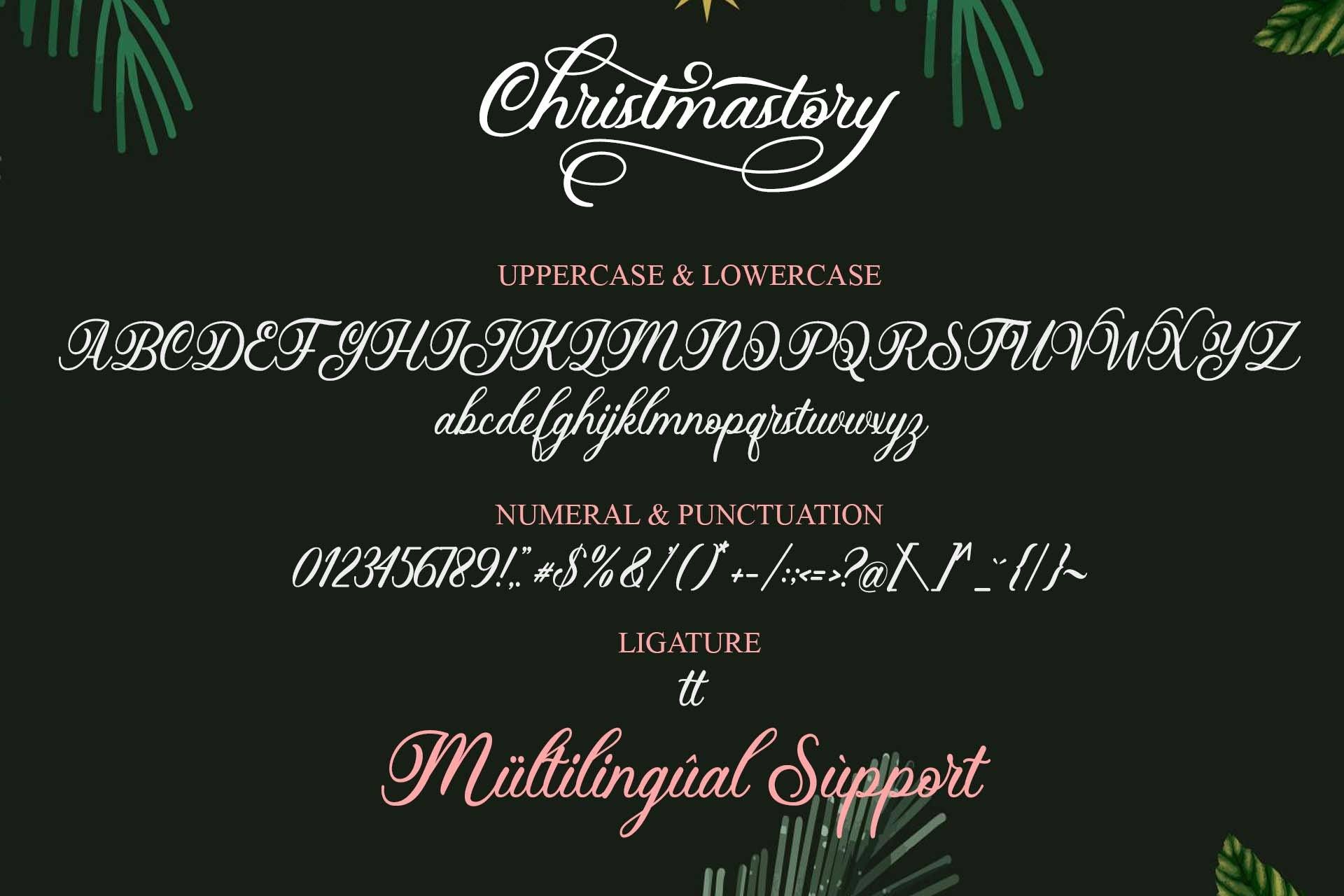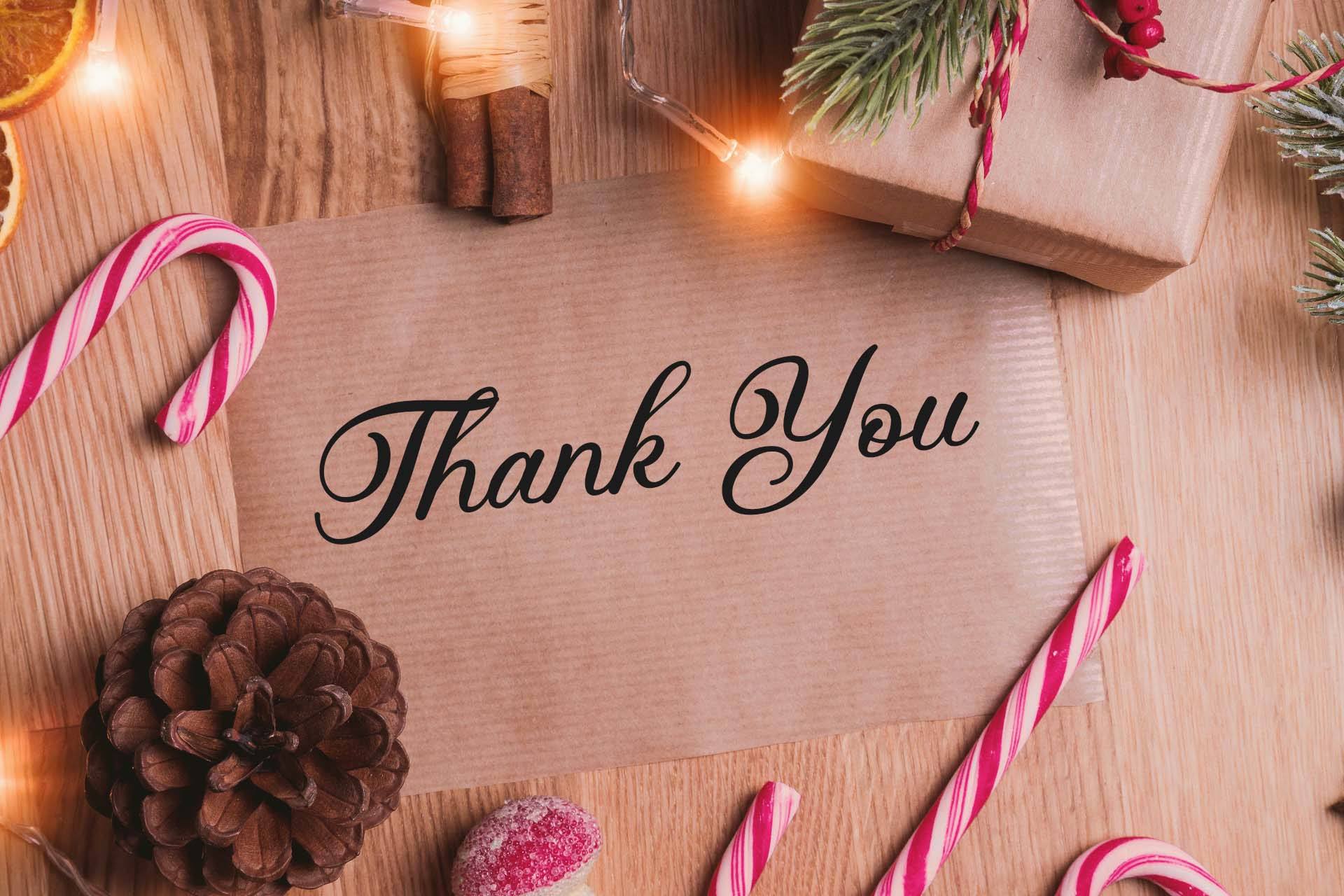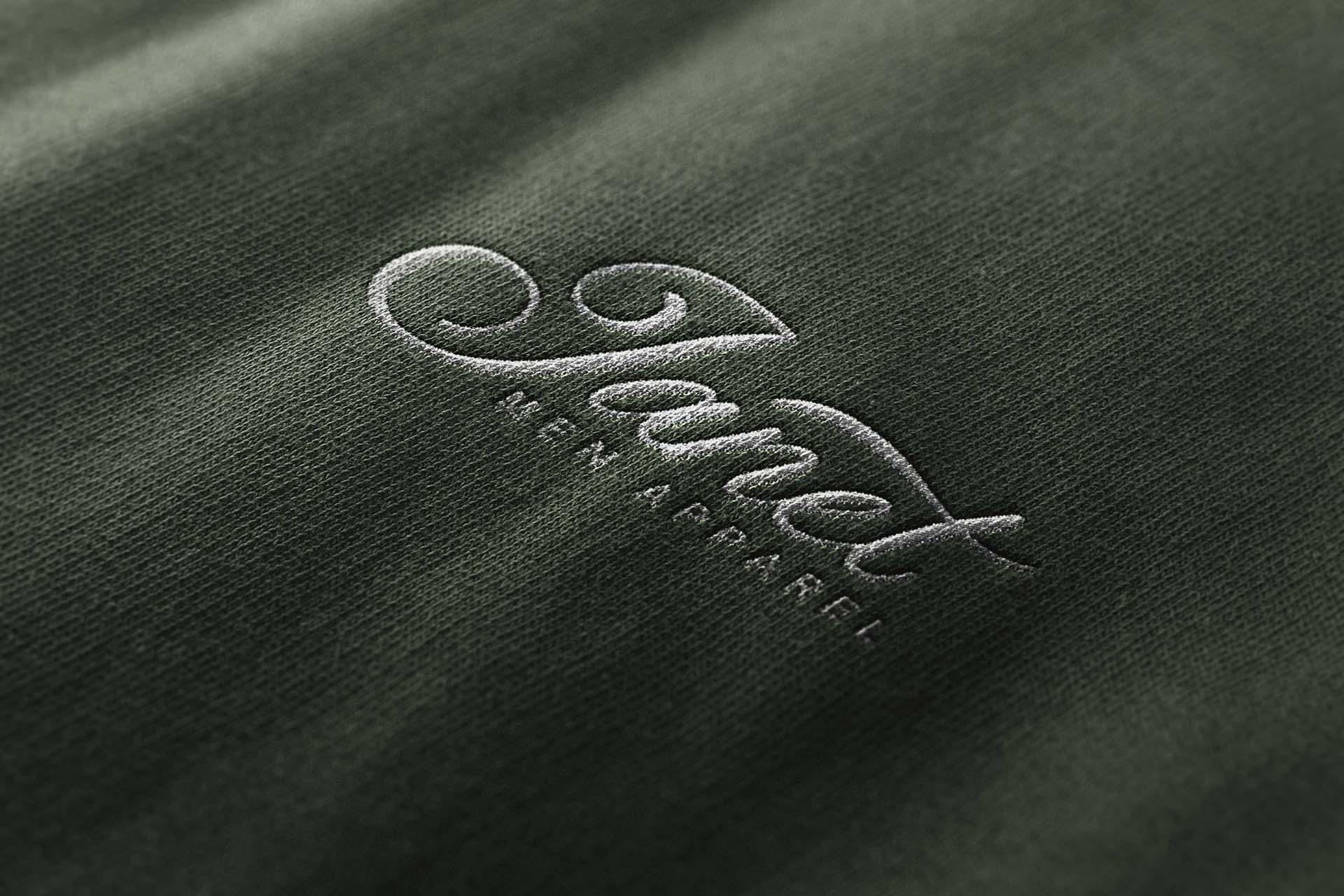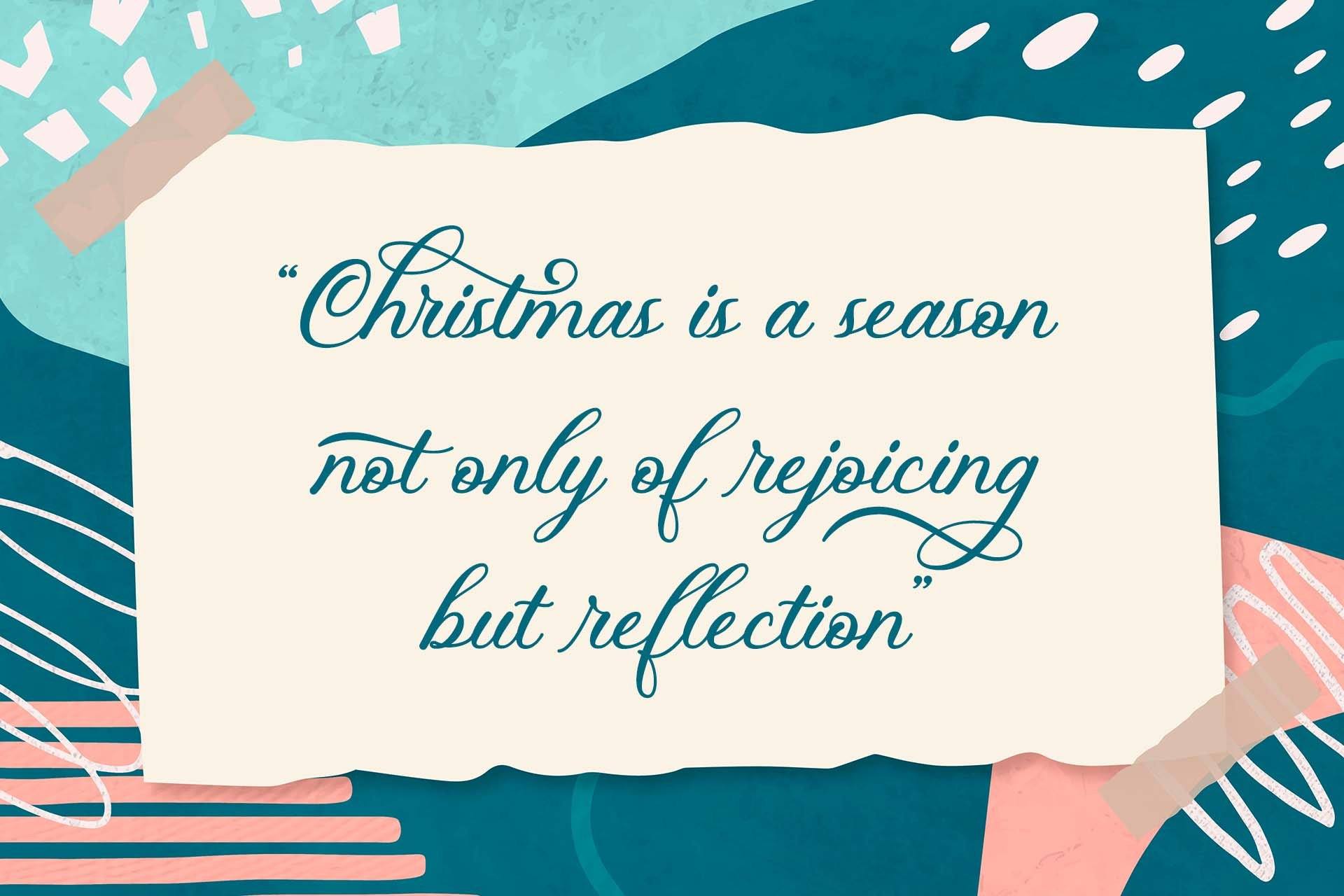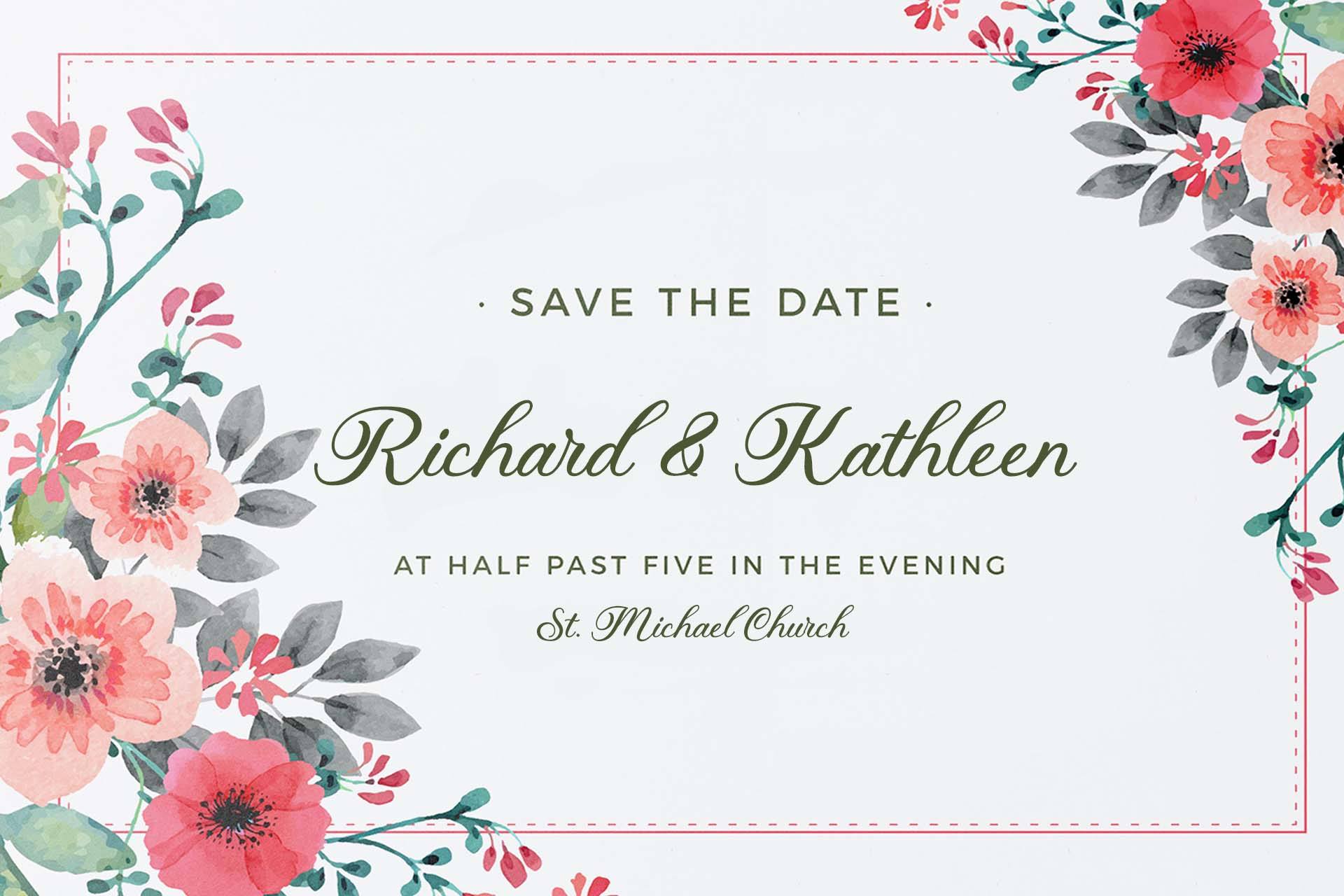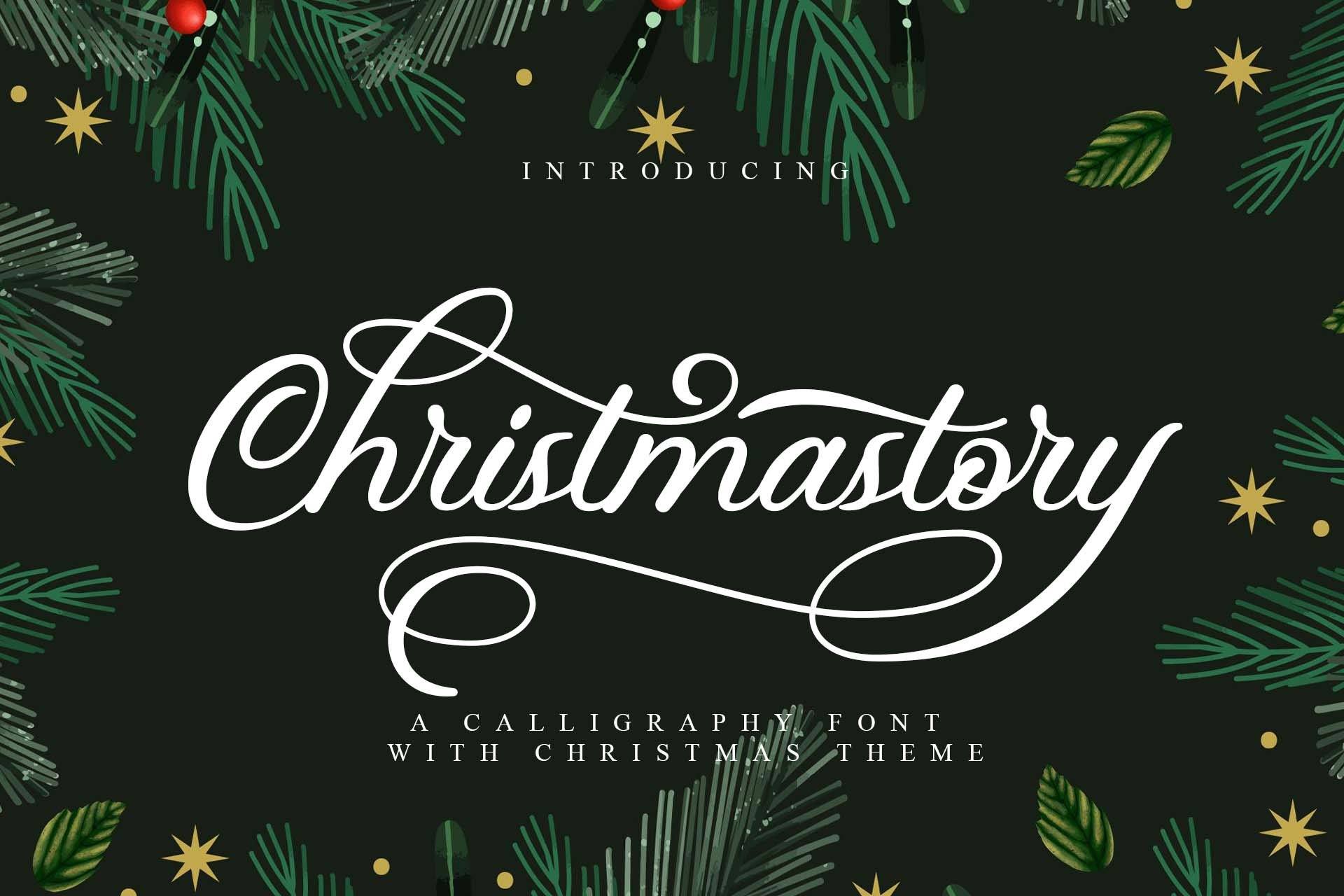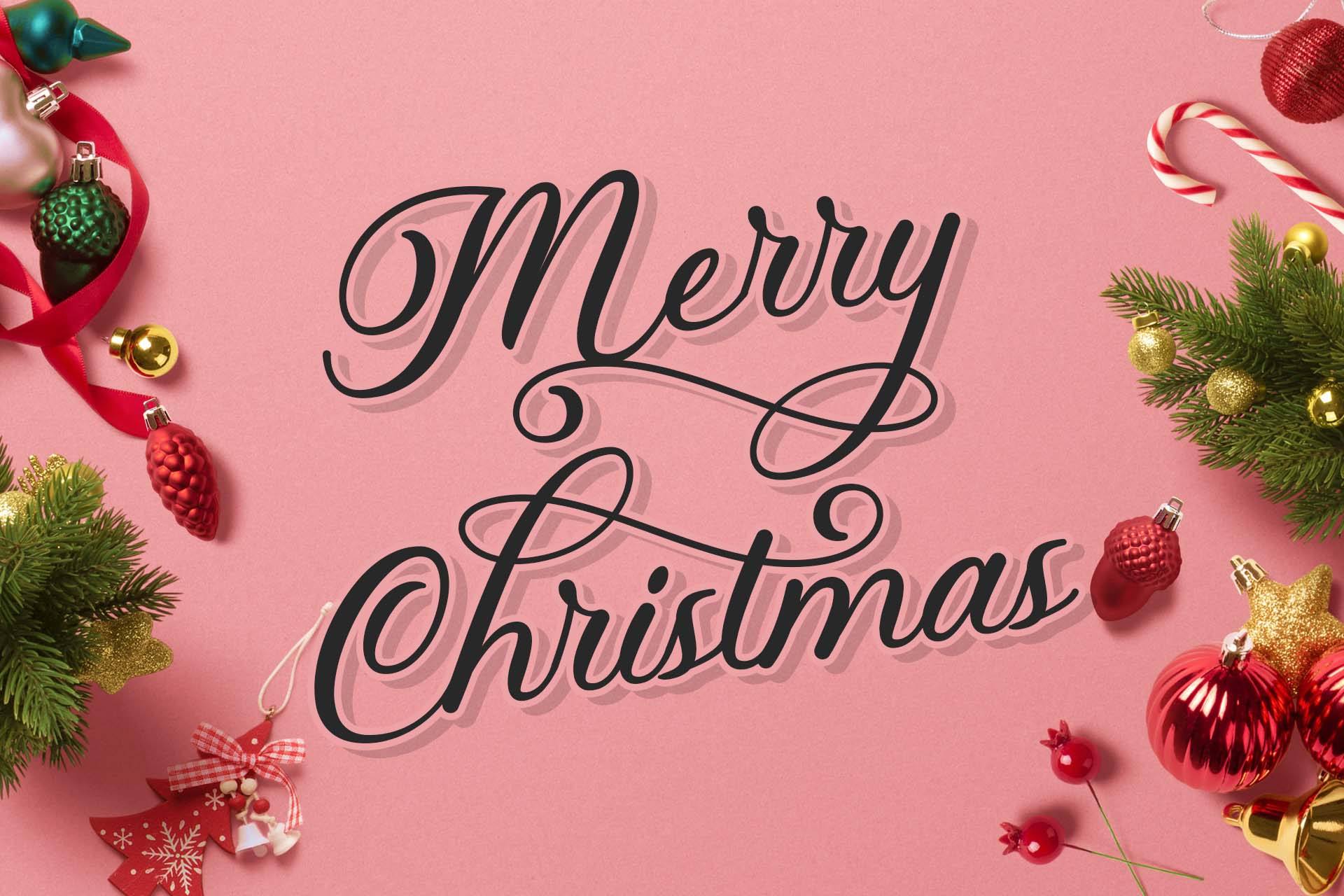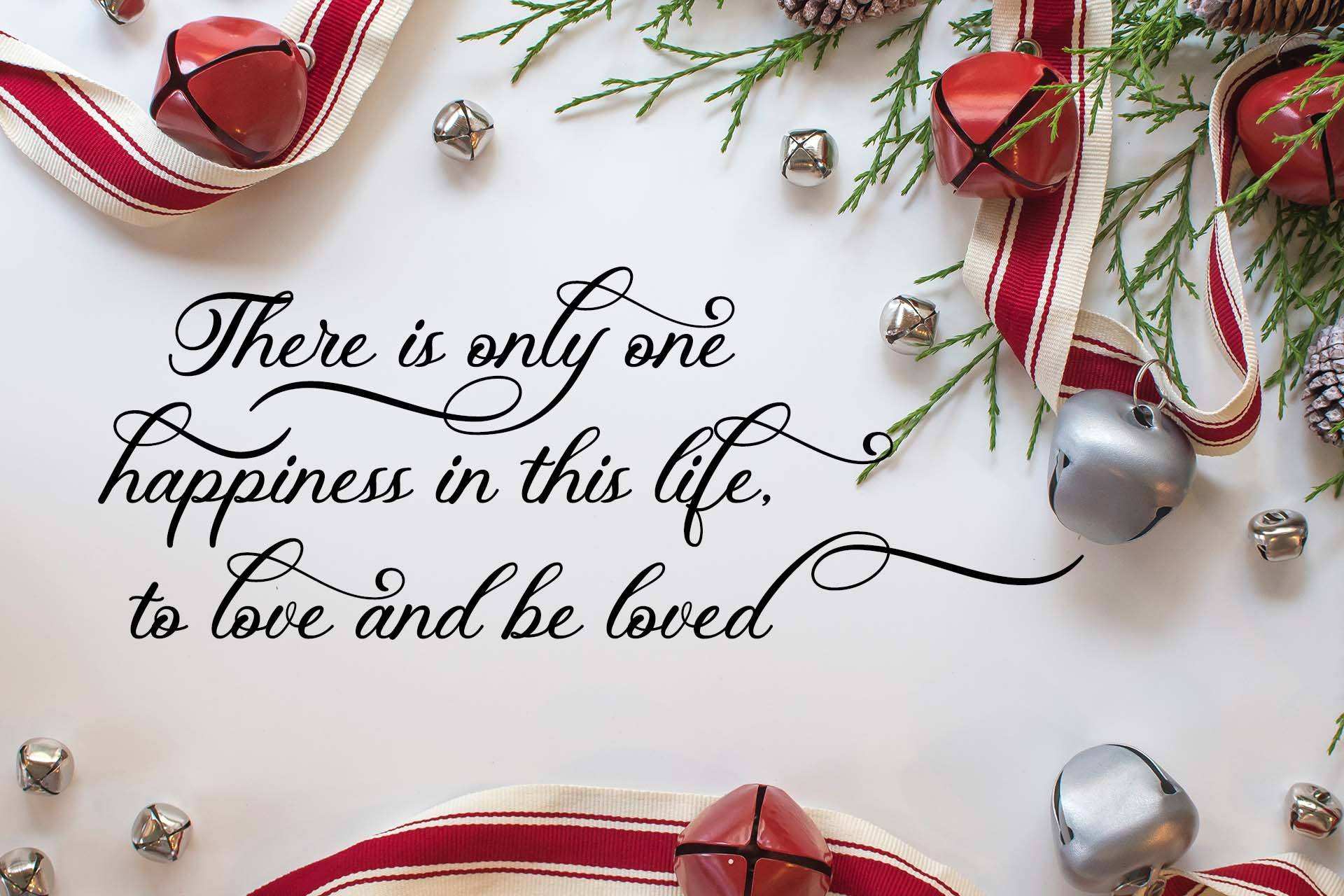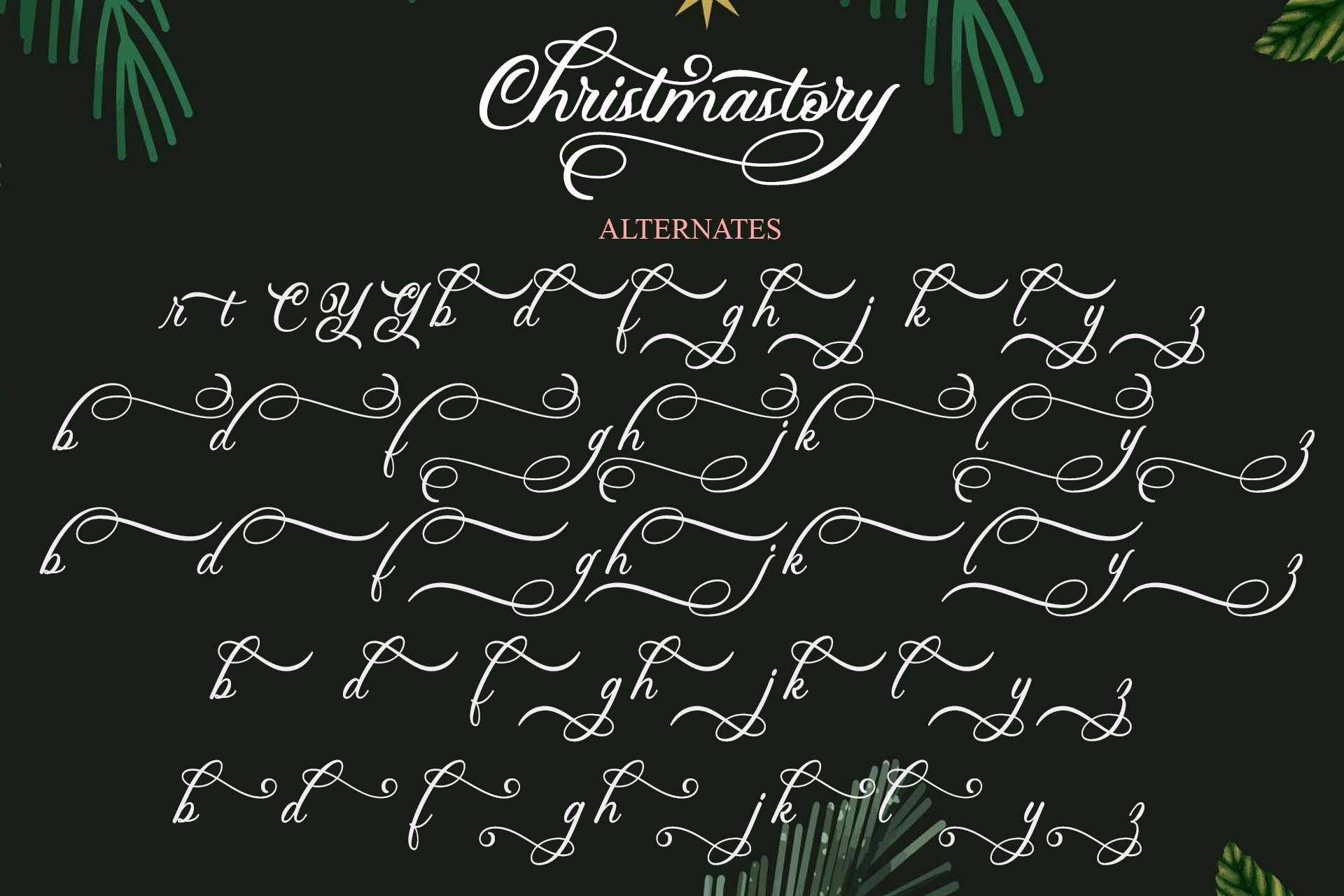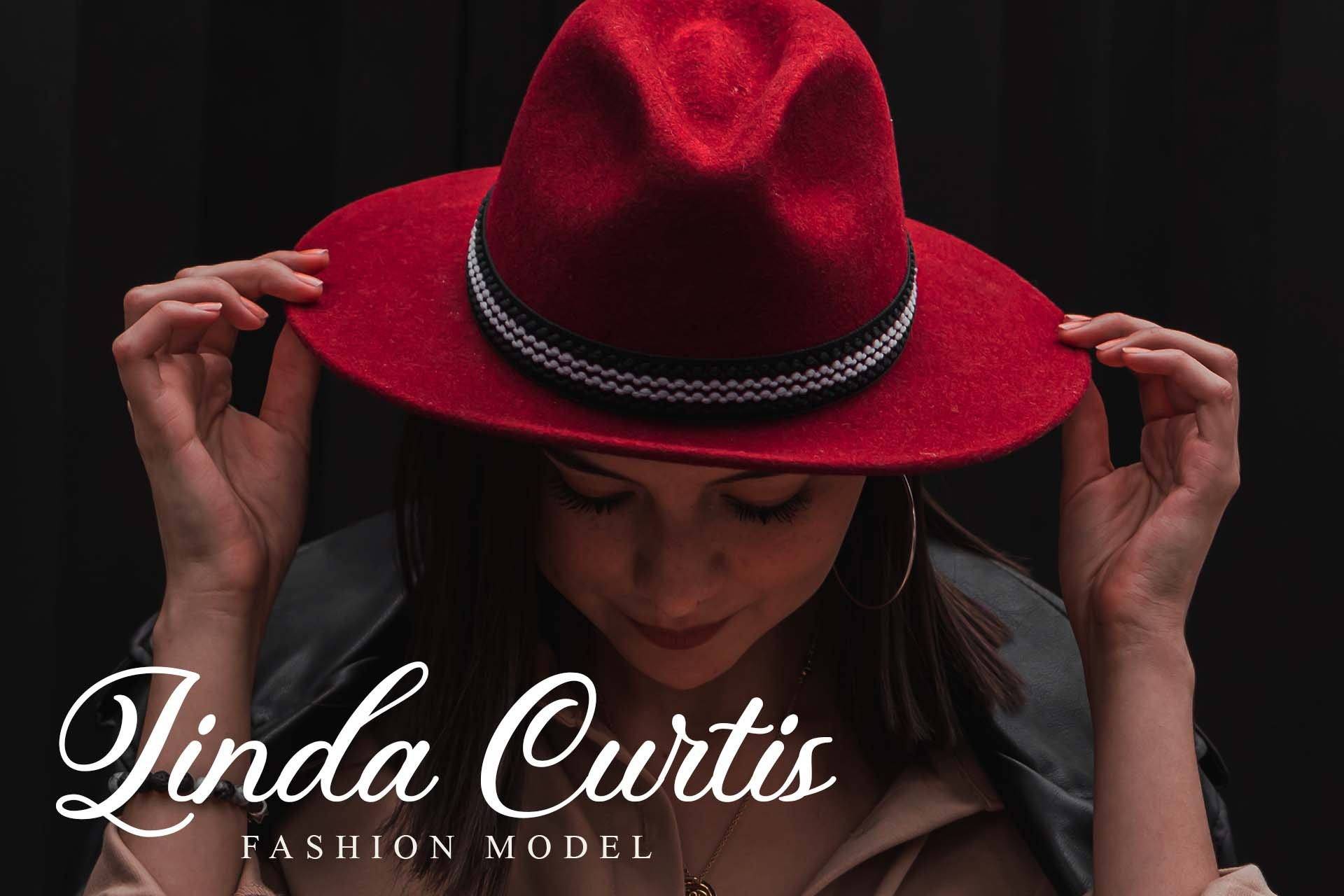
Christmastory Script Font
About Christmastory Script Font
Christmastory is a calligraphy font that comes with christmas theme. And It is PUA encoded which means you can access all of the glyphs and swashes with ease! This fonts is ideal for crafting, branding and decorate your any project. This fonts are perfect for wedding invitation or your blog. Also with their help, you can create a logo or beautiful frame for your home. Or just use for your business, book covers, stationery, marketing, magazines and more. Fall in love with its incredibly versatile style and use it to create spectacular designs!